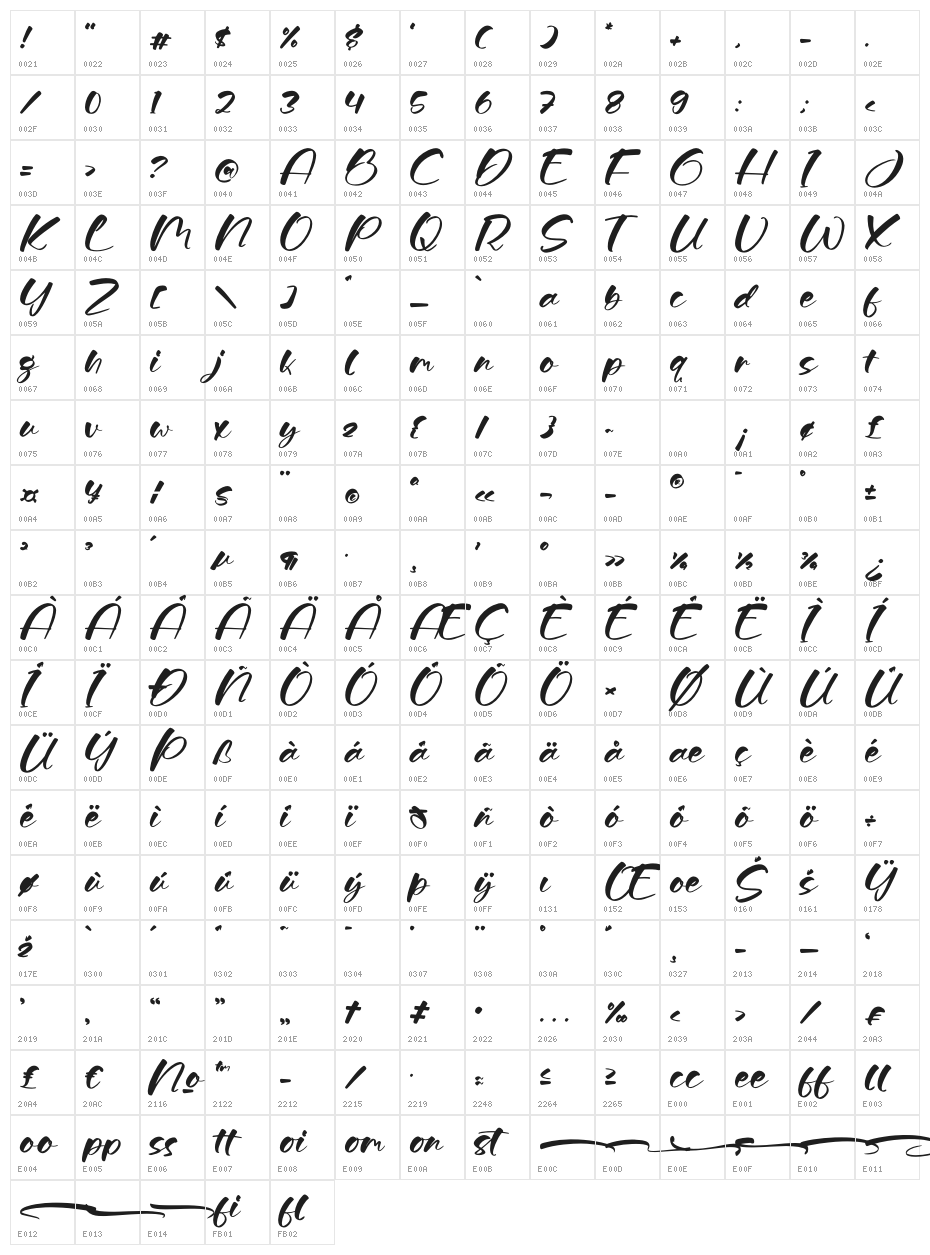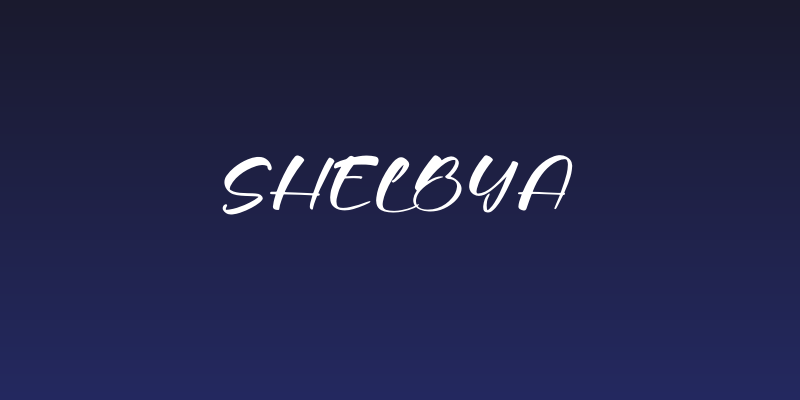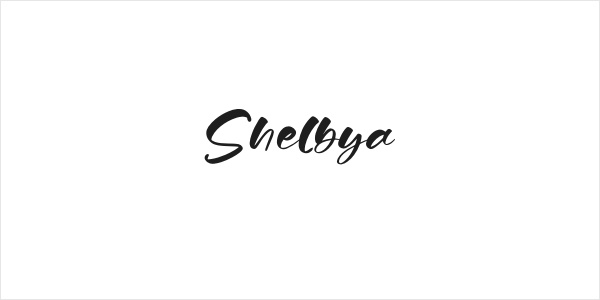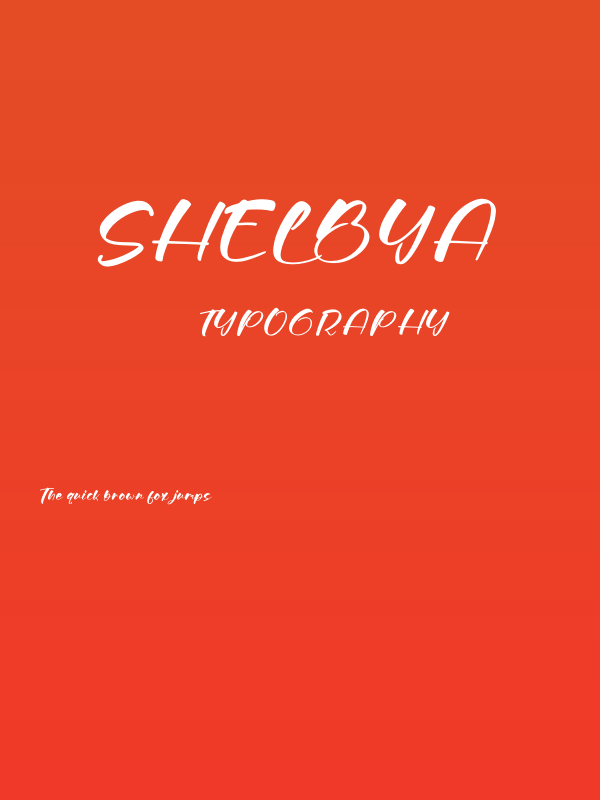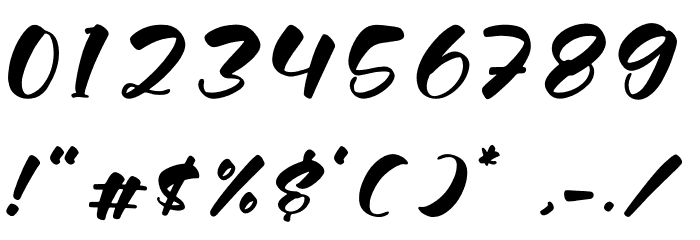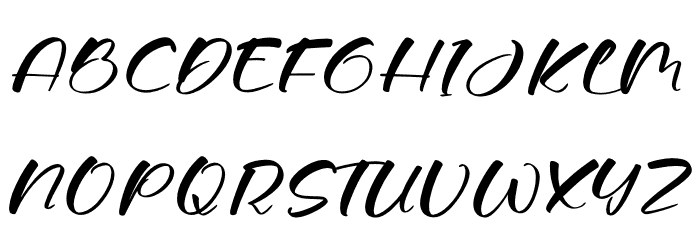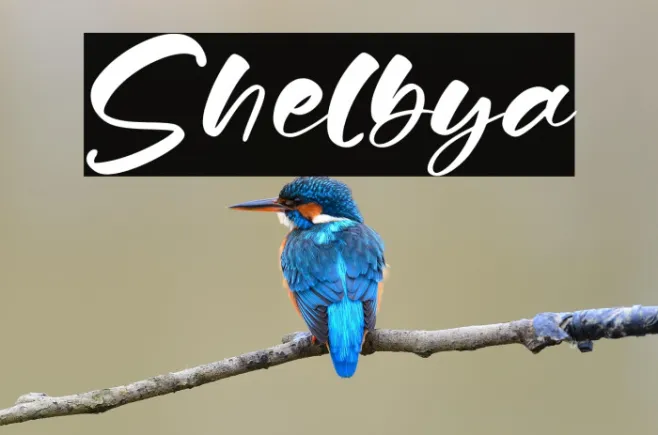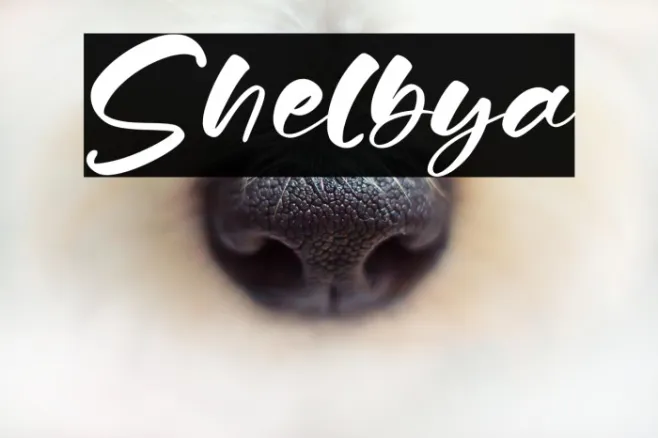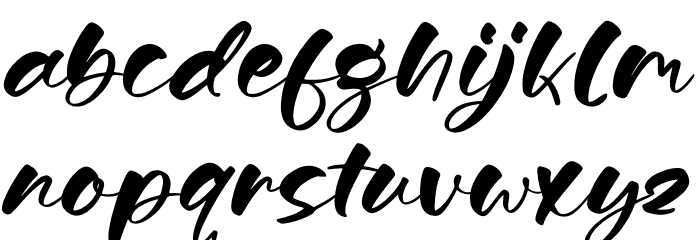
Shelbya Font
Shelbya Description
This font features a bold, flowing script style that exudes elegance and dynamism. The uppercase letters are slightly slanted, with smooth curves and a consistent stroke width that gives a sense of fluidity. The lowercase letters maintain the same flowing style, with some characters featuring loops and swashes that add a decorative touch. The numerals are bold and rounded, complementing the overall script style. Special characters are designed to match the font's aesthetic, with a playful yet sophisticated appearance. This font is ideal for projects that require a personal, handwritten feel.